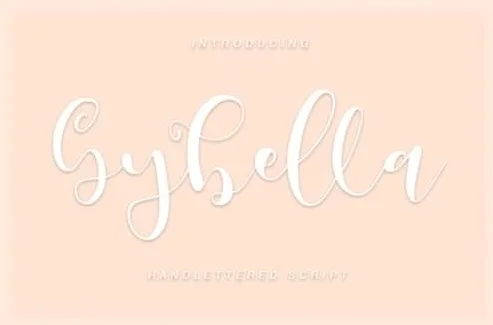
Gybella Script Font
Gybella Script Font is perfect for elegant wedding invitations, feminine brand logos, beauty product packaging, fashion boutique signage, romantic greeting cards, luxury cosmetic labels, sophisticated social media graphics, personal branding materials, upscale restaurant menus, and refined stationery designs that require flowing calligraphic beauty and graceful elegance.
This font is exciting because it features exquisitely crafted script letterforms with smooth, flowing connections that create a sense of effortless sophistication and timeless romance. The elegant curves and refined details demonstrate exceptional calligraphic artistry, making every word feel more luxurious, personal, and visually captivating while maintaining perfect readability across various design applications.
The Gybella Script Font family typically includes uppercase and lowercase characters, numerals, punctuation marks, ligatures, stylistic alternates, decorative swashes, and ornamental flourishes that enable designers to create beautifully customized compositions with authentic handwritten charm.
Whether you're crafting premium brand identities for creative entrepreneurs, designing elegant wedding materials, or developing sophisticated marketing collateral for luxury businesses, Gybella Script Font Free Download provides the perfect typographic expression of grace and refinement. Its flowing character and feminine elegance make every project feel more polished and professionally executed, ensuring your designs beautifully convey sophistication, romance, and timeless style that captivates discerning audiences and creates memorable impressions.